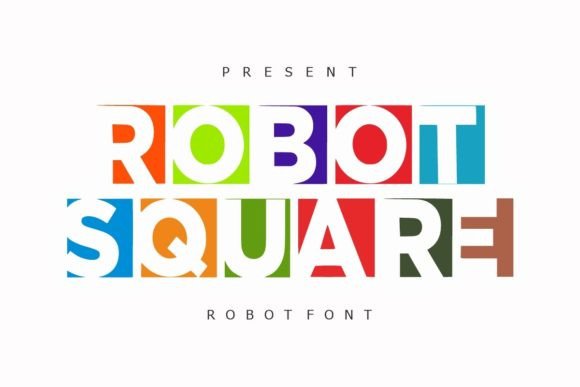
Introduce your audience to Robot Square Font, the display font family that echoes cool and fun vibes into your creative realm. Crafted meticulously by Infinity art Studio, this font adds a touch of youth and joy to any design project, making it the perfect choice for invitations, posters, and stickers that demand a dash of youthful vibrancy.
Step into a world of creativity where Robot Square Font becomes your trusty companion, transforming your artistic visions into tangible realities. Unleash your imagination and watch as your designs take on a life of their own, captivating the senses of anyone who lays their eyes upon them.
With Robot Square Font, you'll find a font that embodies the spirit of adventure, inspiring you to explore new horizons and uncharted territories in your design journey. Its bold and playful personality promises to make a statement, leaving an unforgettable mark on the hearts and minds of your audience.
Embrace the transformative power of Robot Square Font and witness how effortlessly it elevates your designs, adding an element of wonder and excitement. Let your creativity flourish as you create designs that ignite the imagination, leaving your audience spellbound. Join the creative revolution and unlock the true potential of your design dreams with Robot Square Font today!